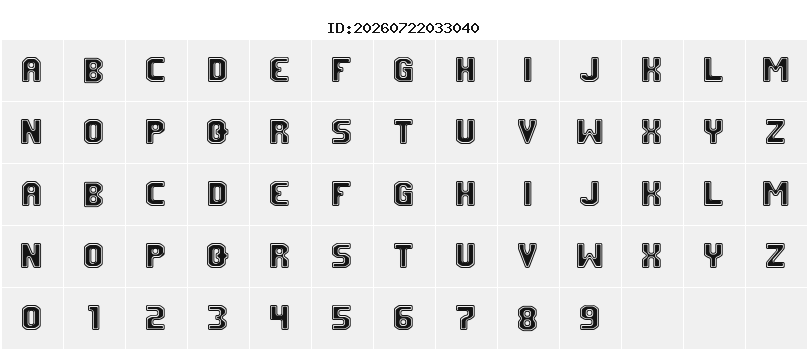
FM University Preview
About FM University.ttf
FM University.ttf is a modern, elegant sans-serif font designed for ultimate readability and visual harmony. Perfect for branding, headlines, web design, and print materials.